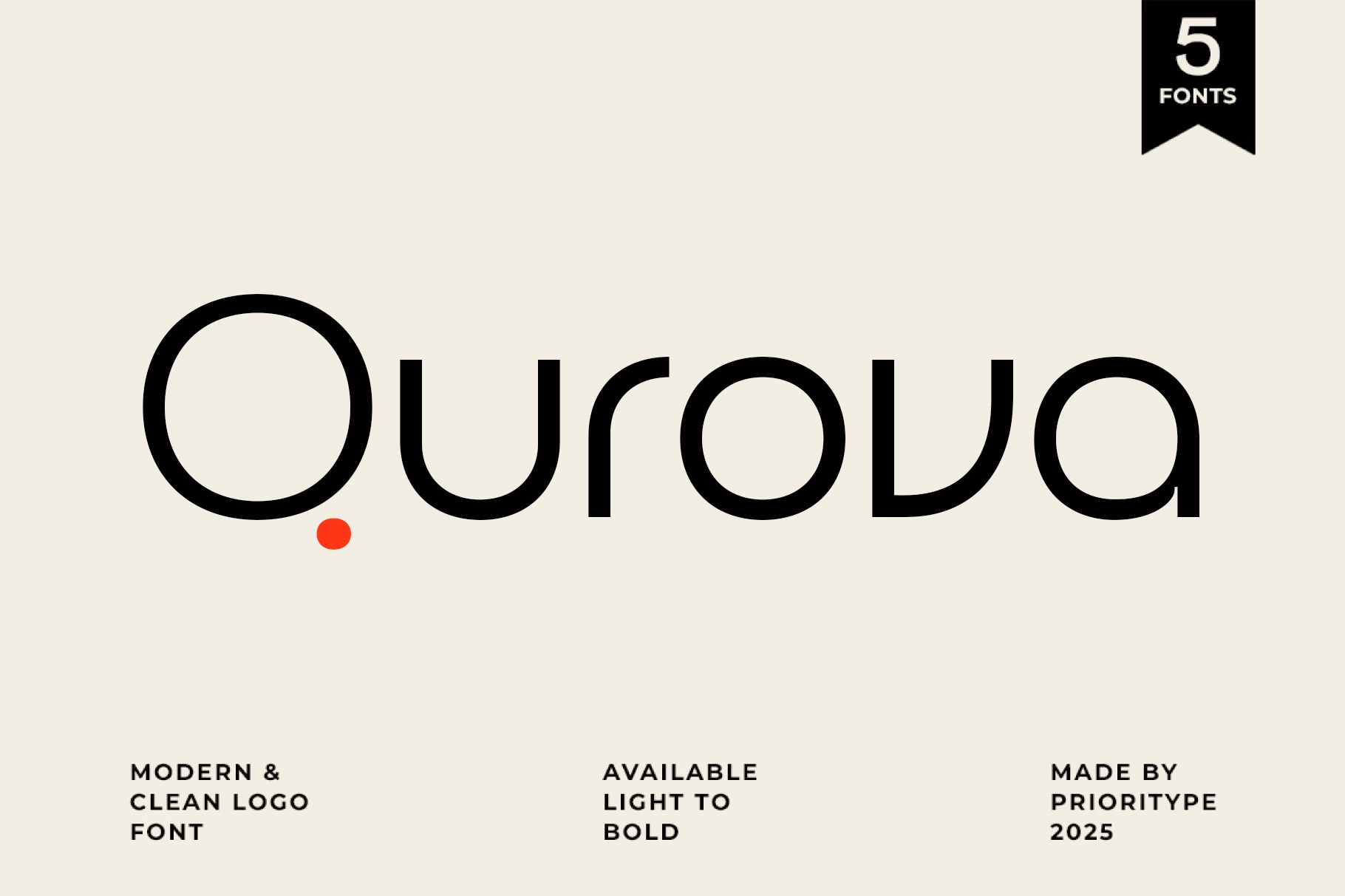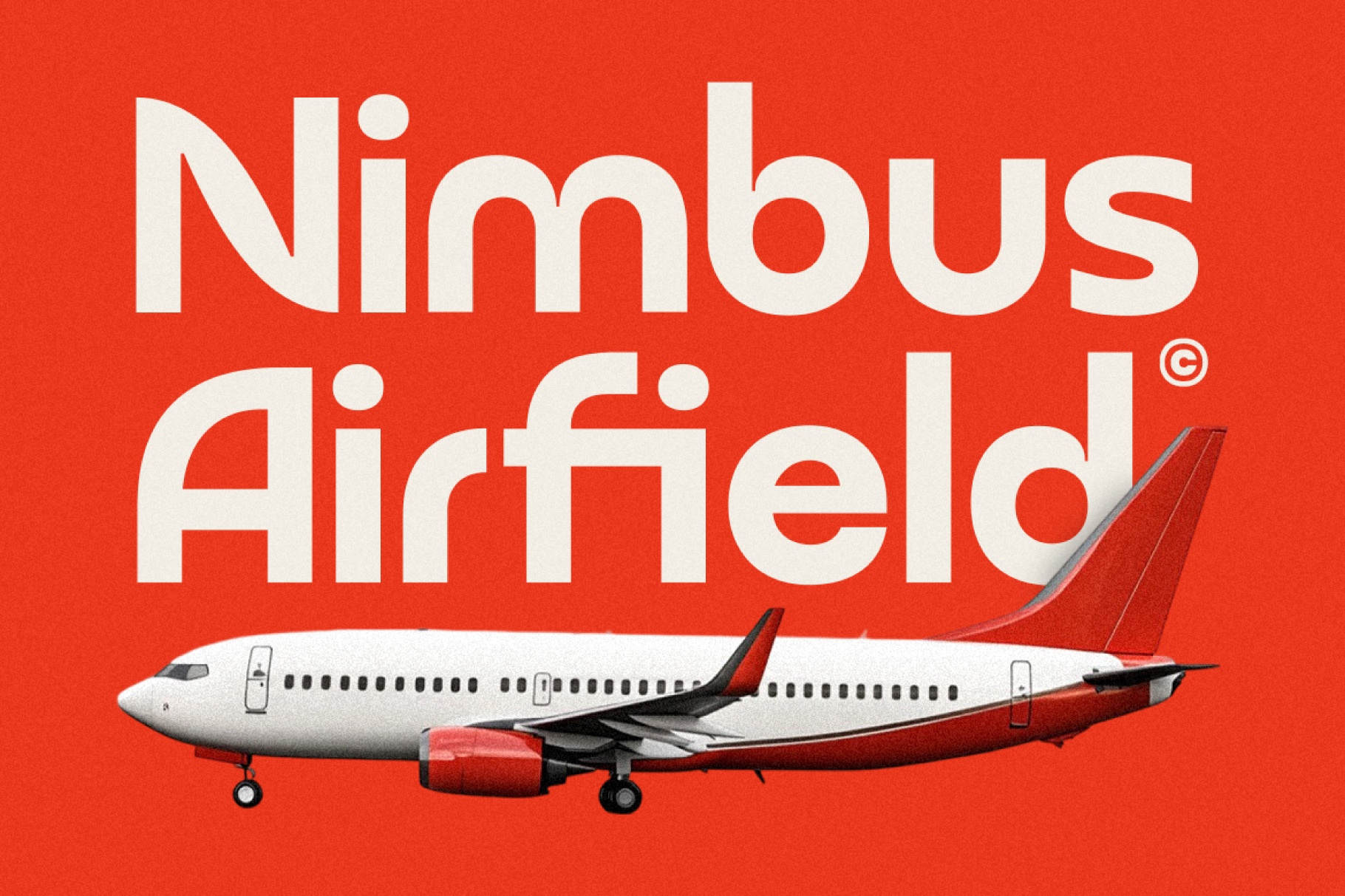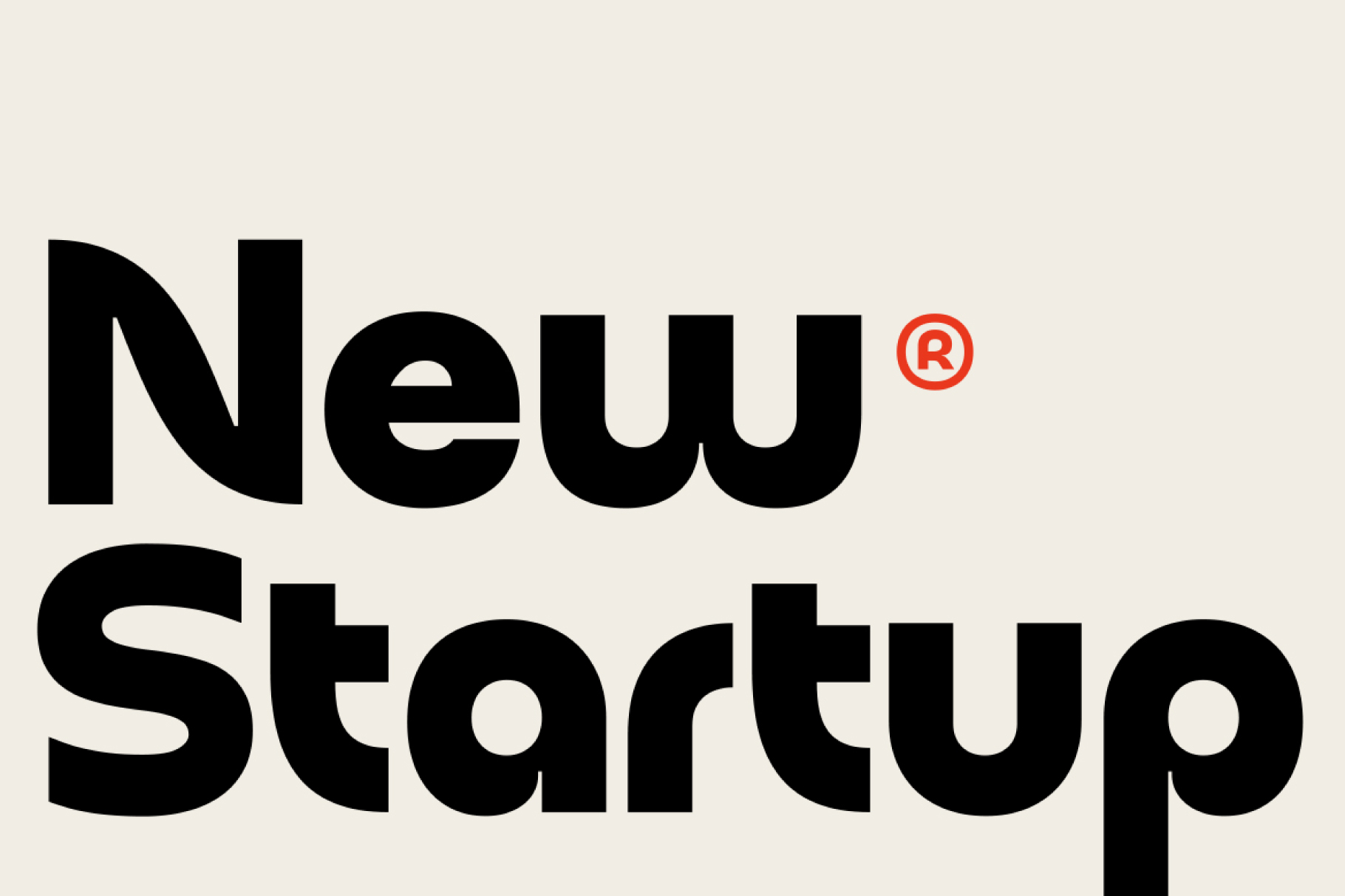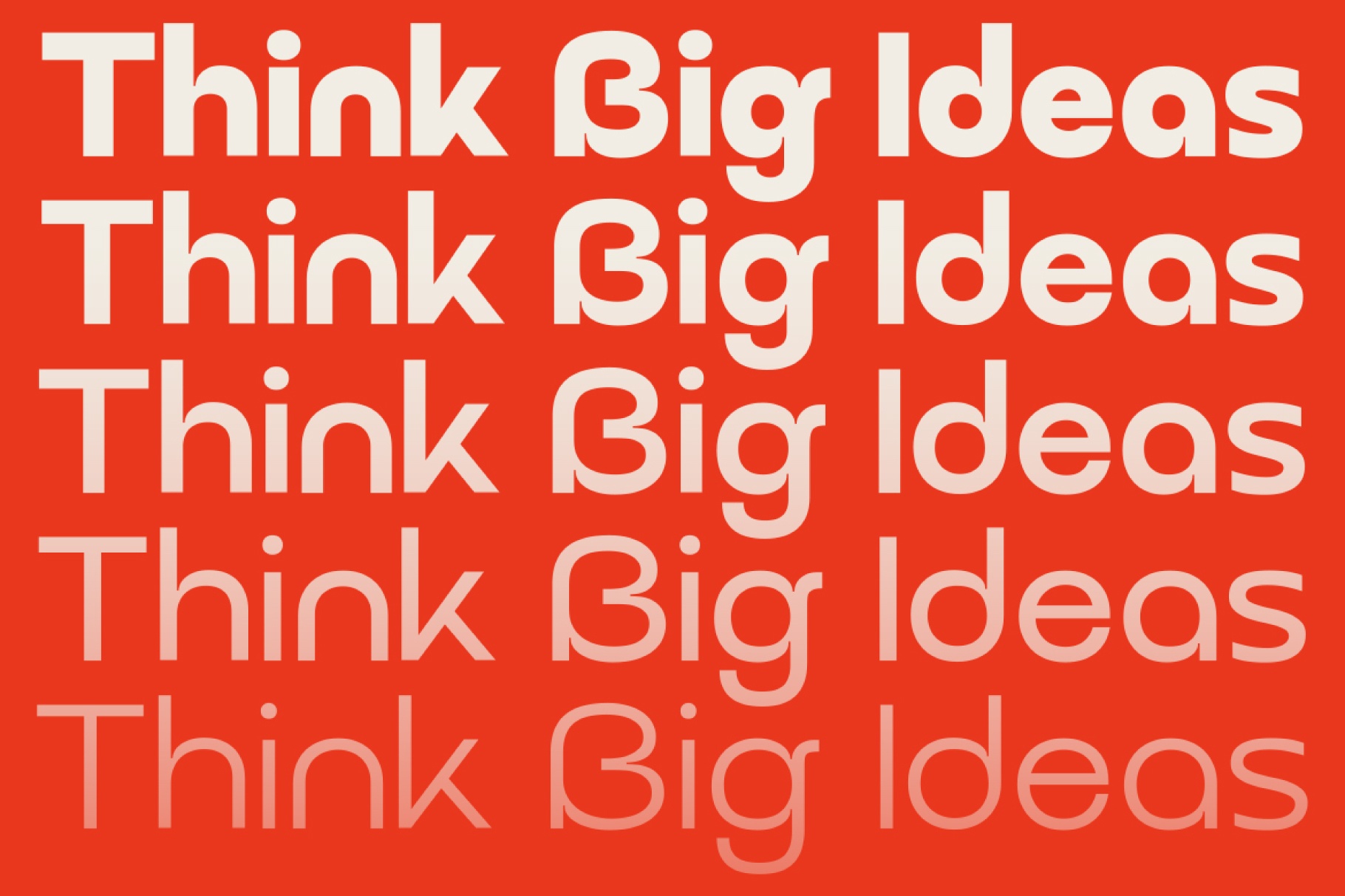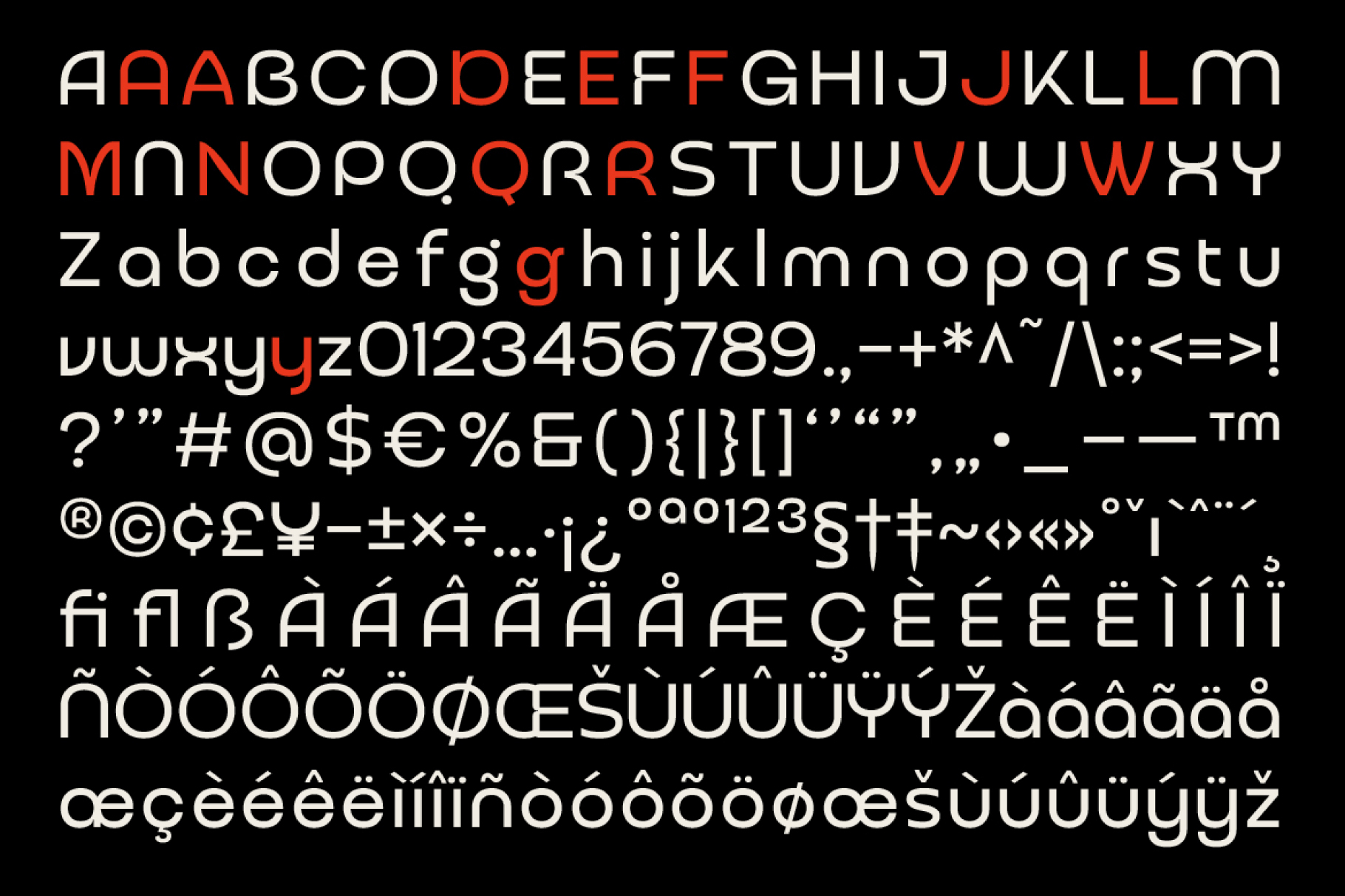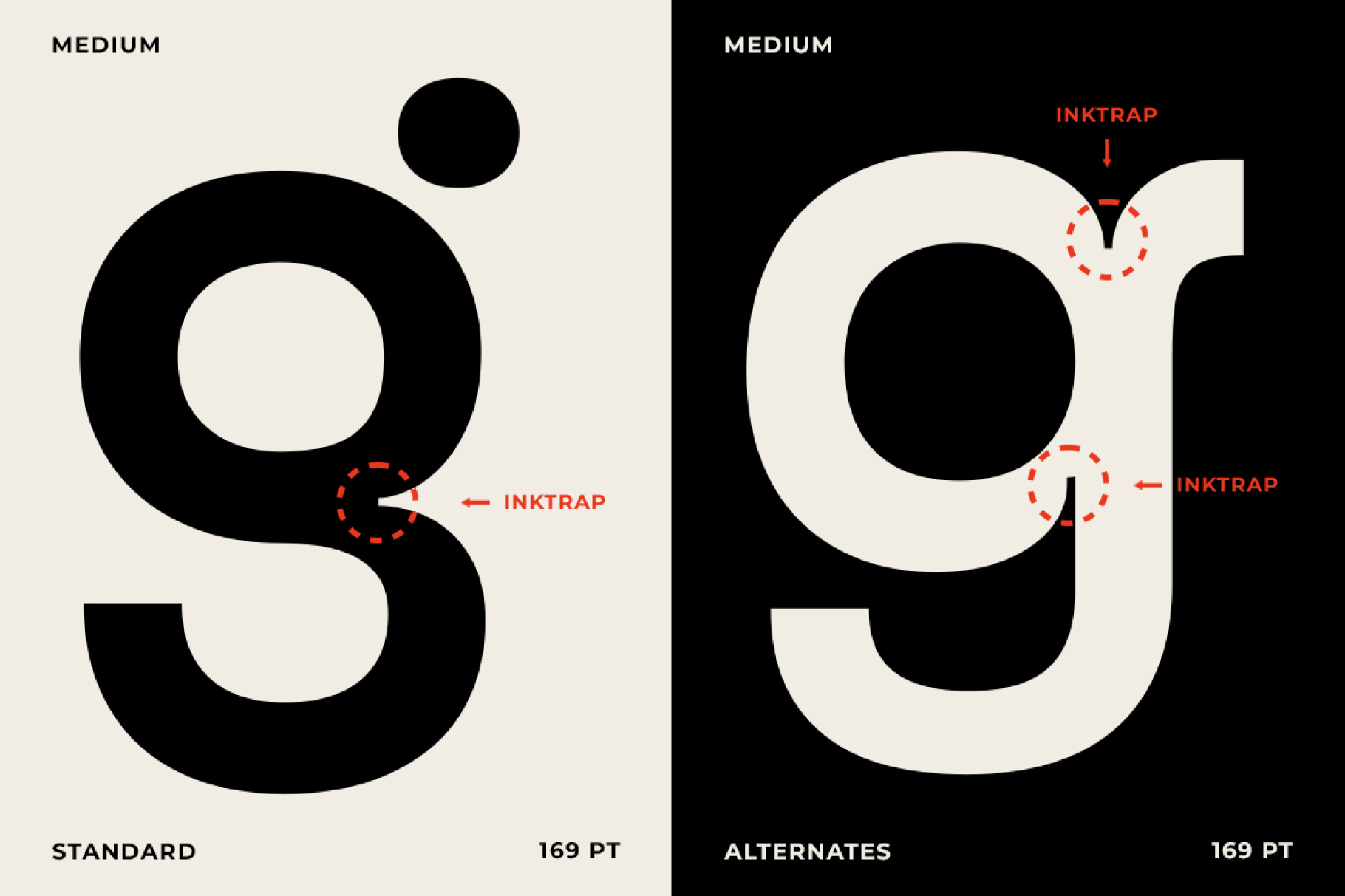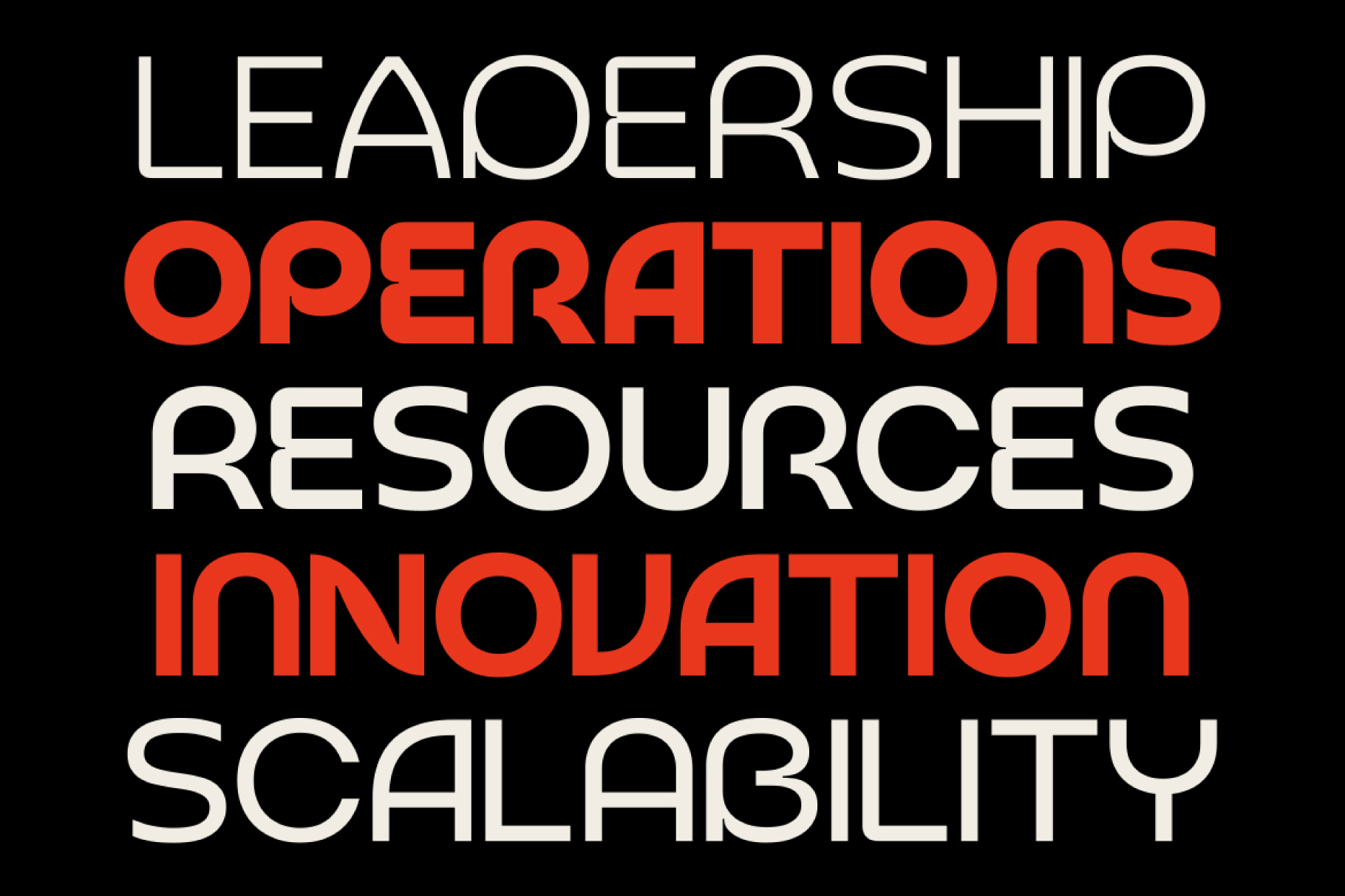
Qurova - Logo Font
Qurova is a modern sans-serif typeface crafted for professional branding and corporate design. Featuring a full range of weights from Light to Bold, it combines clean lines with versatile functionality, making it ideal for logos, visual identities, and sophisticated branding needs.